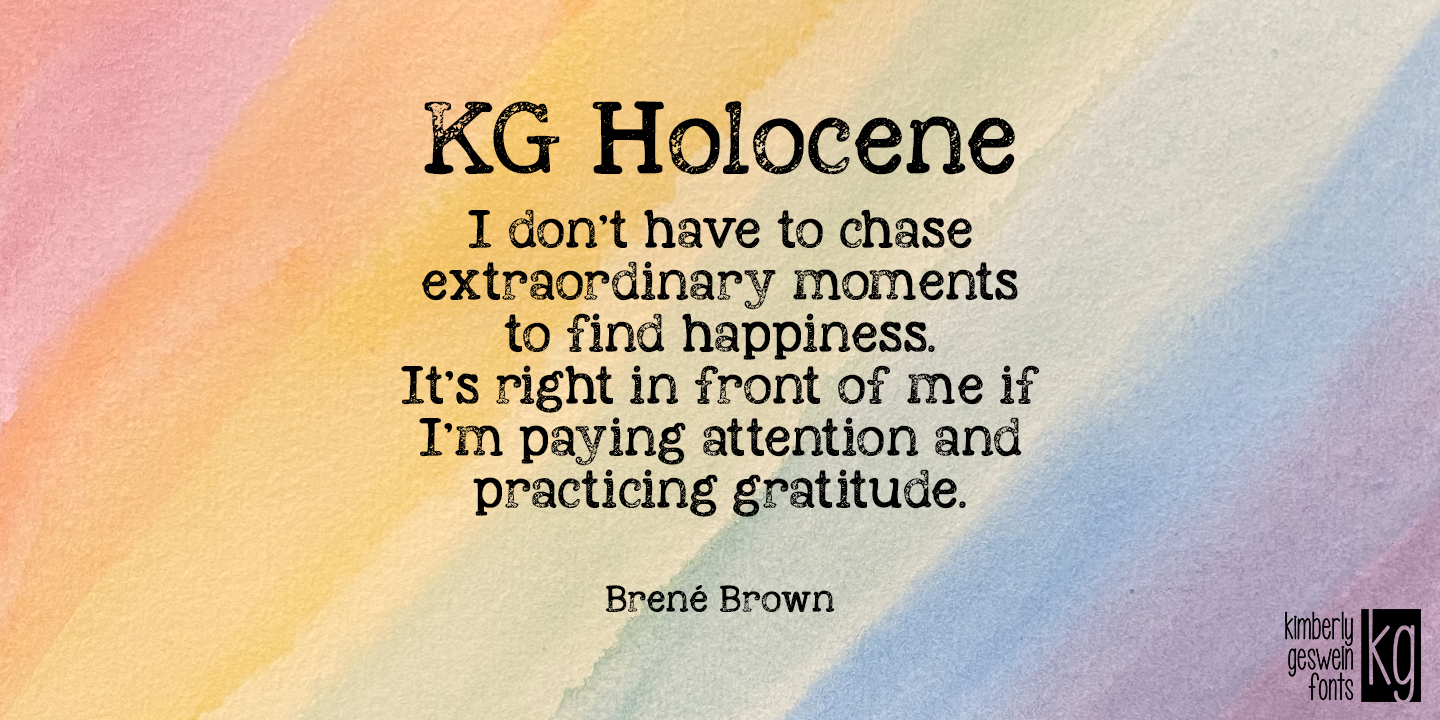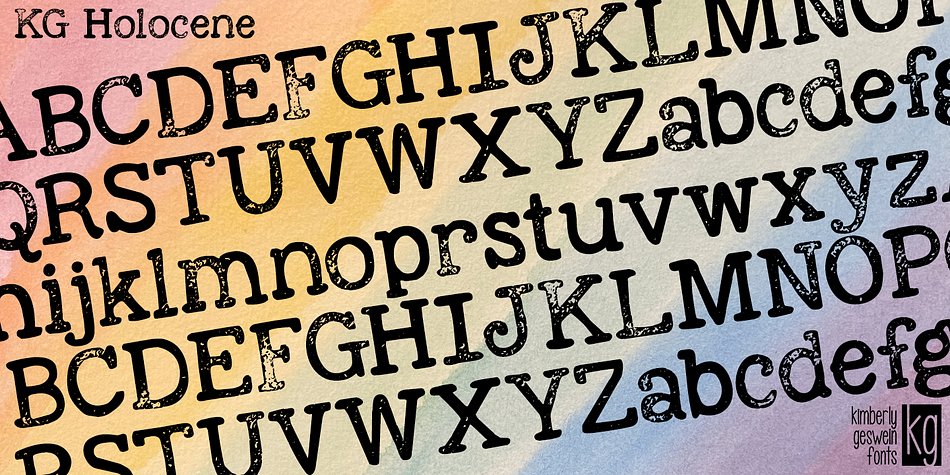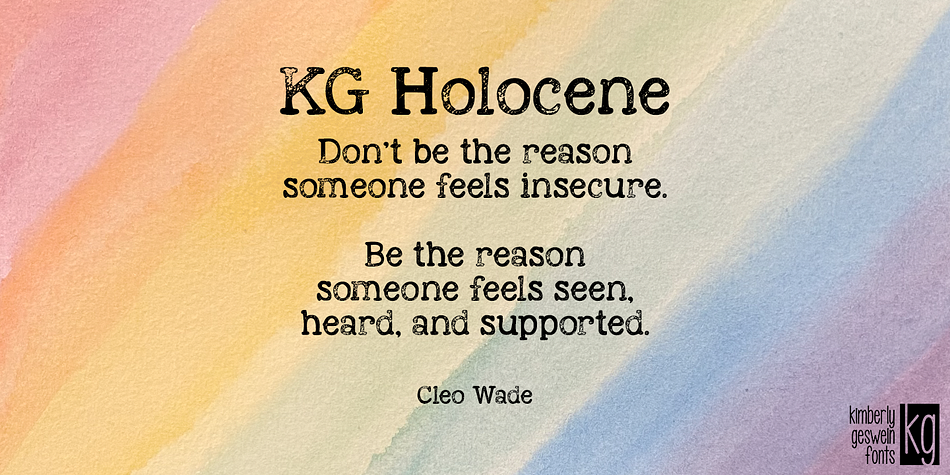
Designed by Kimberly Geswein, KG Holocene is a display, grunge and typewriter font published by Kimberly Geswein Fonts.
A stamped type font. Maybe your typewriter is broken and just types like this. Maybe you’re just a quirky gal. Either way, this is that thing.